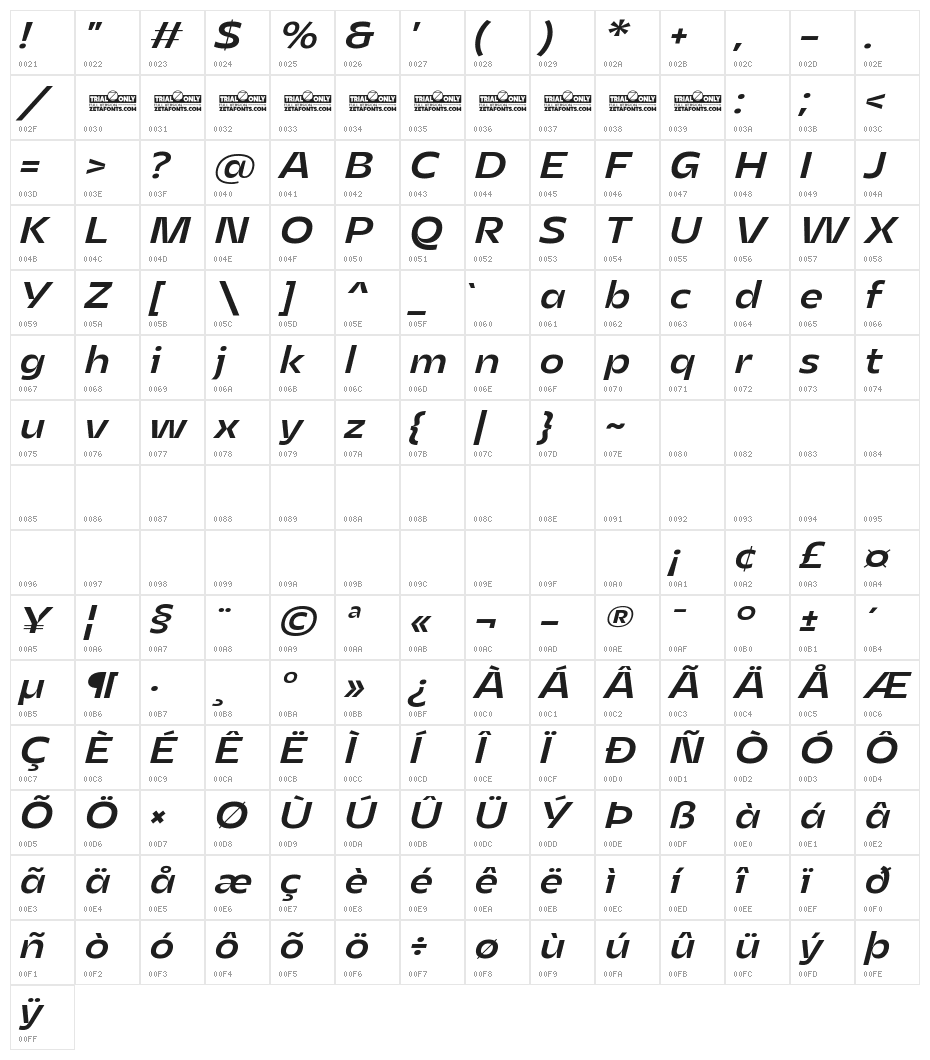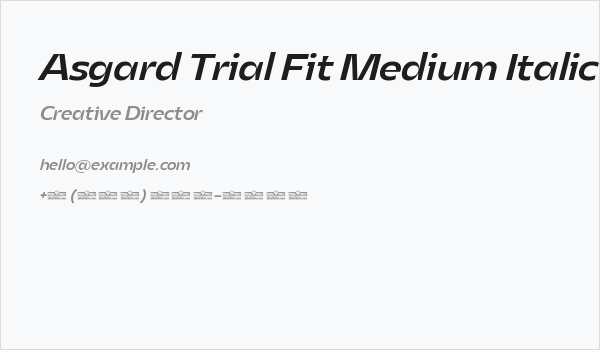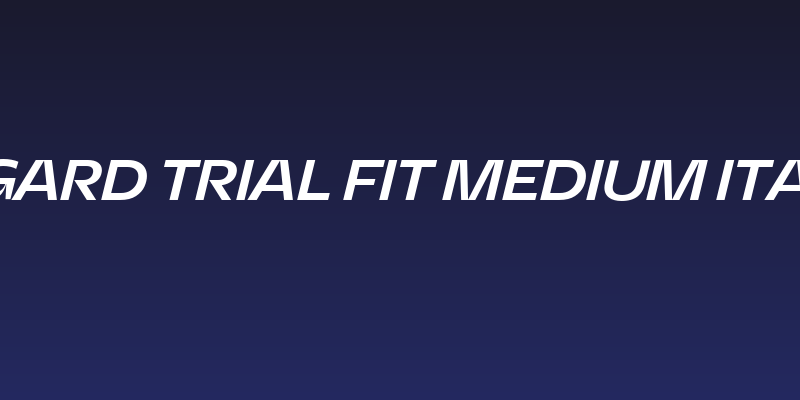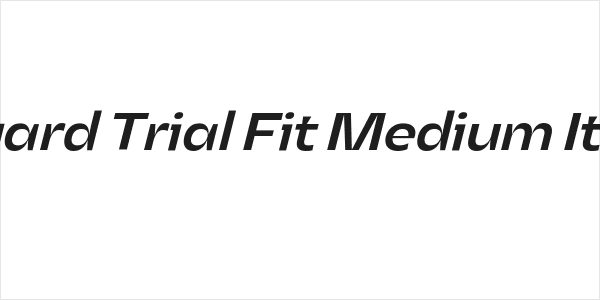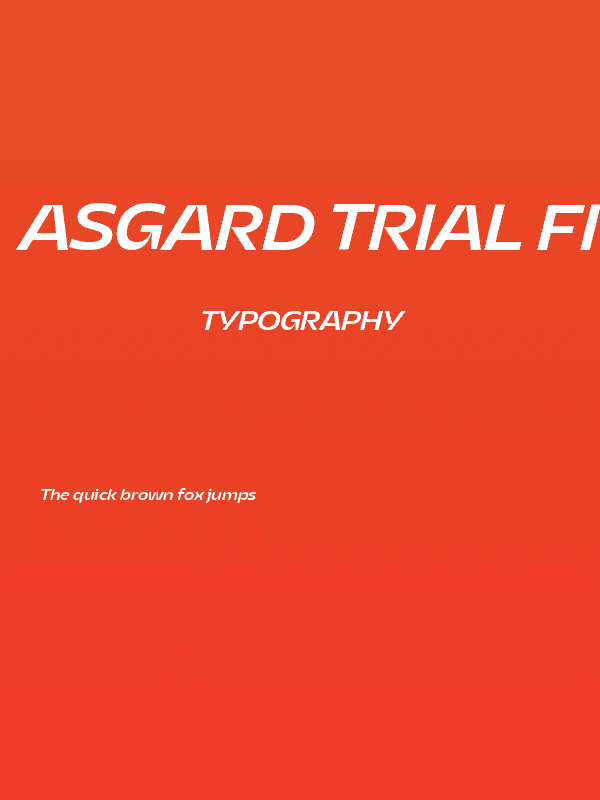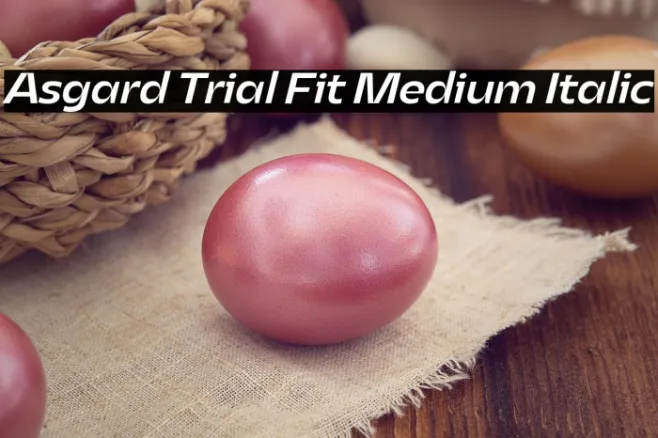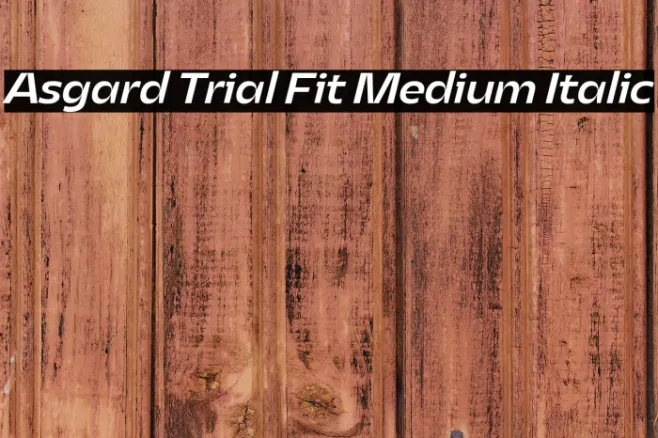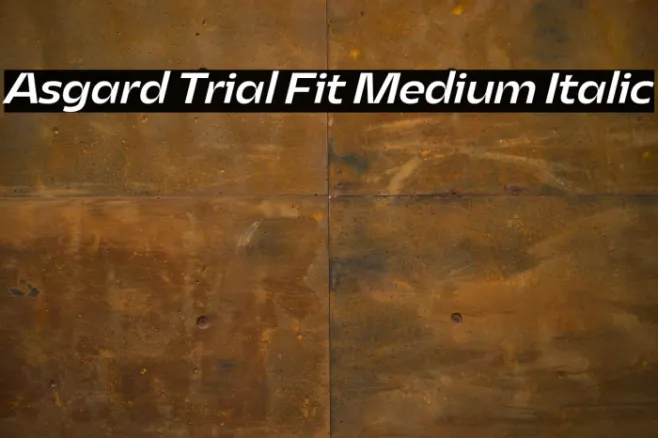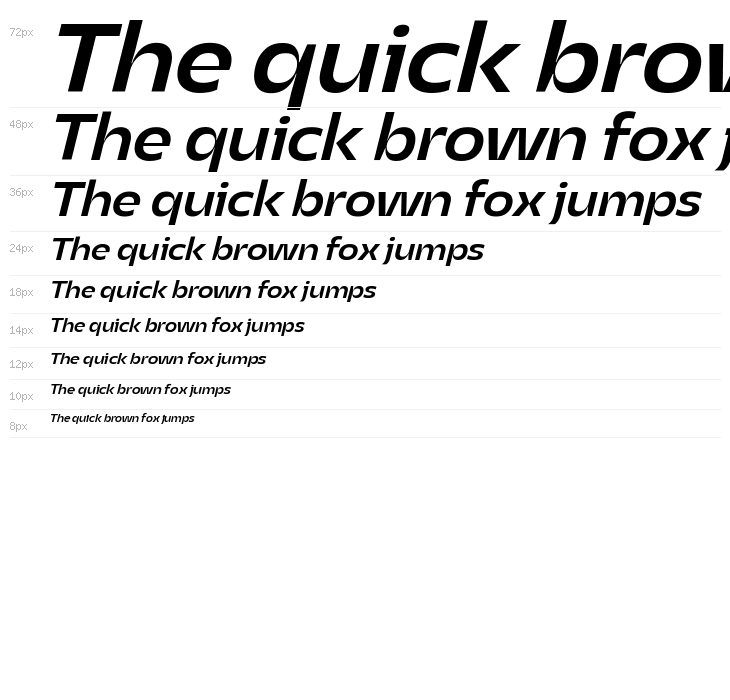
Asgard Trial Fit Medium Italic Font
Asgard Trial Fit Medium Italic Description
This font features a sleek and modern design with a slight italic slant, giving it a dynamic and forward-moving appearance. The characters are clean and well-defined, with a medium weight that balances readability and style. The uppercase and lowercase letters maintain a consistent style, with smooth curves and sharp angles that add a touch of sophistication. The numerals and special characters are equally well-crafted, ensuring versatility across various applications. The overall look is contemporary, making it suitable for a wide range of design projects.
| Proposed Projects | Ideal for branding, advertising, and editorial design where a modern and dynamic look is desired. |